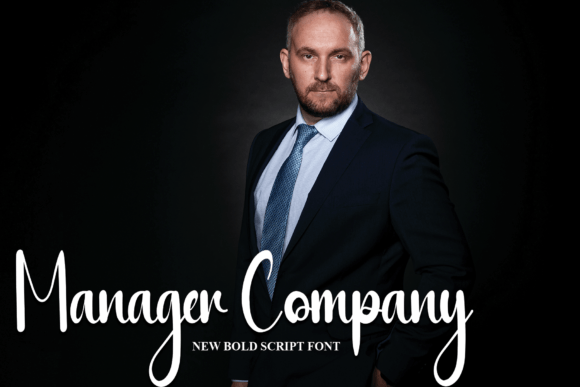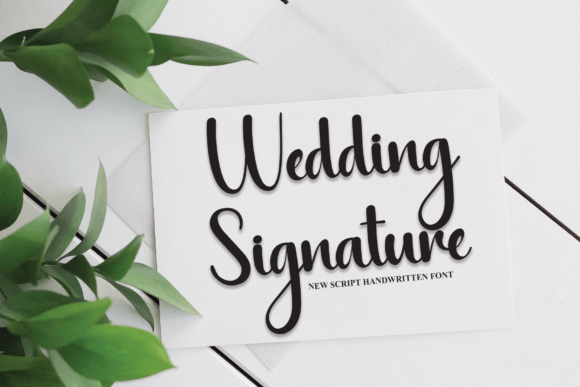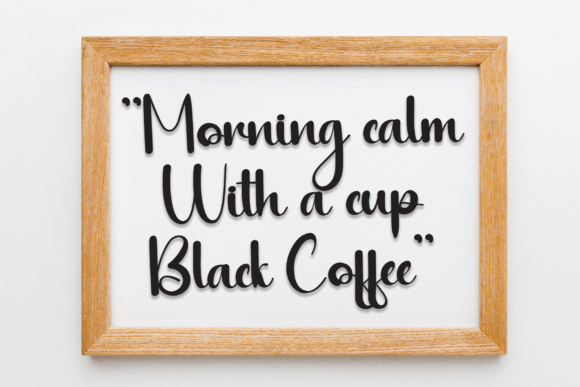
Introduction to Fishing Beach Font
Fishing Beach feels equally charming and elegant.
It looks stunning on wedding invitations, thank you cards, quotes, greeting cards, logos, business cards, and every other design which needs a handwritten touch .
Key Features of Fishing Beach Font